2 Google Fonts Similar to Arial
Arial is one of the most used san-serif fonts within the last 30 years. It was designed in 1982 by Robin Nicholas and Patricia Saunders for the IBM laser printer. Since then, it has become a staple for body paragraph text on the web. It is clean and easy to read which helps make it so popular.
If for whatever reason you cannot use Arial and need to find an alternative then I have 2 good alternatives for you.
What Google Fonts are Similar to Arial?
The best fonts from Google Fonts that are similar to Arial are:
- Lato
- Open Sans
In my opinion, these are going to be the best alternatives.
However, there are some differences. So lets cover the similarities and differences in each one.
Lato
Lato is a really popular sans-serif font that is available on the Google Font library.
It does a great job matching the lowercase letters of Arial. It does a great job matching close to 90% of the letters. The biggest difference is with the "g" and "y".
The same goes for the uppercase. It is about 90% similar except for the "M", "Q", "S", and "J".
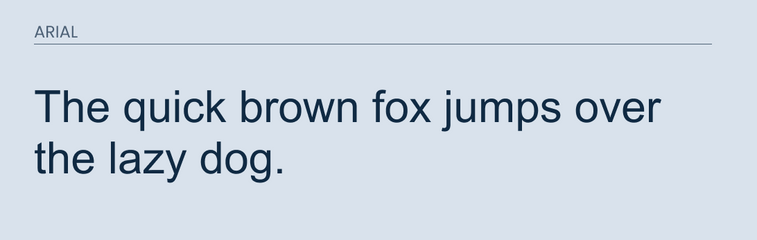
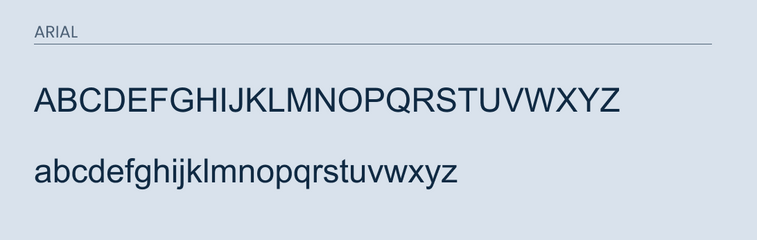
Open Sans
Open Sans is in the same position as Lato. It is similar, but not a perfect match for Arial. If your project is on a budget then it would still work as an alternative because it does match the majority of the letters in both lower and uppercase.
If you take a close look you will find differences in lowercase "g", "y", and a minor difference in the "c".
Uppercase does a better job than Lato, but you can still see differences in "J", "S", and a very minor difference in the "G".
Conclusion
Arial is a hard font to find a perfect match for. Luckily it is a free font on my major operating systems. If you want to use it on your website it would be a safe font to use. If for whatever reason you don't have access to it, you can always try Lato and Open Sans.